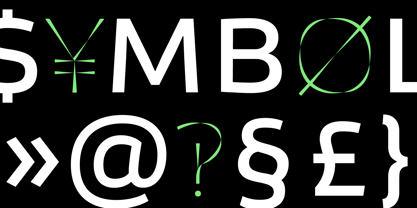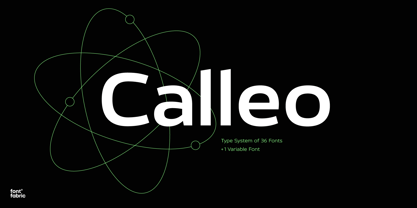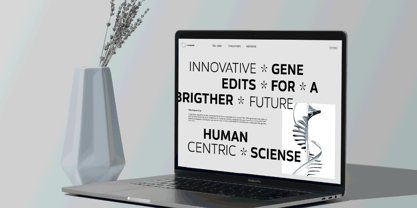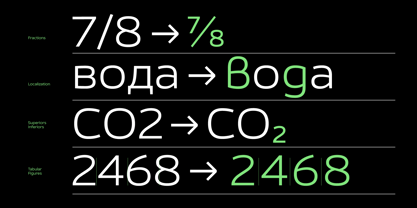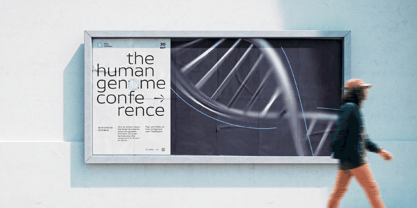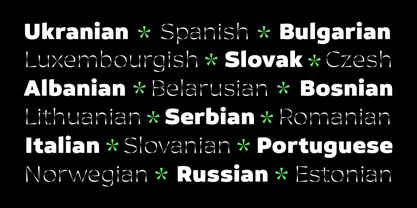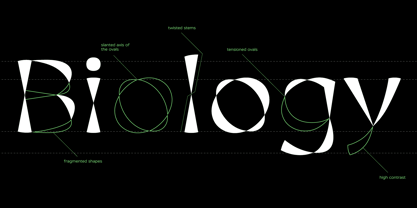
Calleo
by Fontfabric
The Calleo Font Family was designed by Plamen Motev and published by Fontfabric. Calleo contains 37 styles and family package options.
Calleo is a modern sans-serif born from collaboration, offering two contrasting subfamilies: Calleo Sans for clean neutrality and Calleo Flux for expressive energy. With 36 styles plus a variable font, it delivers broad versatility for branding, editorial, UI, and more. Strong legibility, advanced OpenType features, and multilingual support (Exteded Latin and Cyrillic) make it a go-to tool for creatives seeking balance between minimalism and dynamism. Whether you’re shaping logos, packaging, or digital experiences, Calleo brings clarity, character, and flexibility to every project.